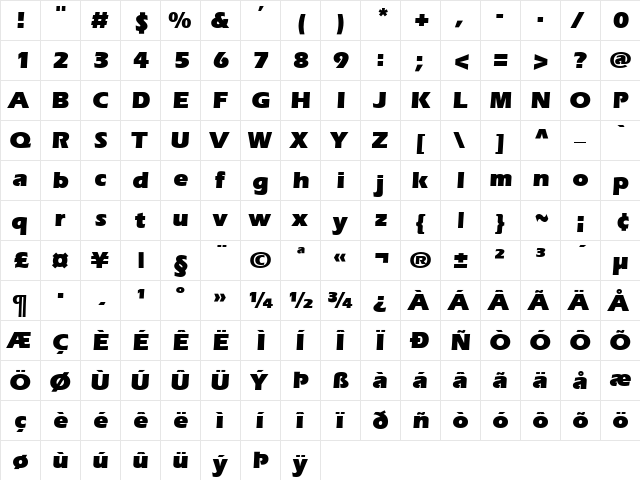
EerieBlack Bold Regular
Design Context for EerieBlack Bold Typeface
EerieBlack Bold offers clean, dependable letterforms without strong stylistic allegiance, making it a practical choice for designers who need flexibility. The heavy weight commands attention and anchors typographic hierarchies.
Pro Tip: Use EerieBlack Bold in both headline and body roles to test its range before committing to a single application.